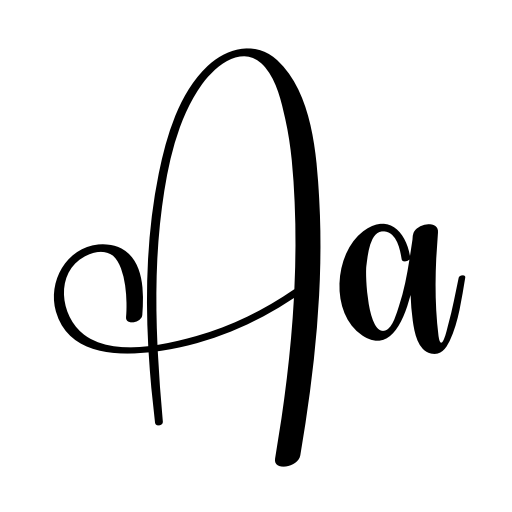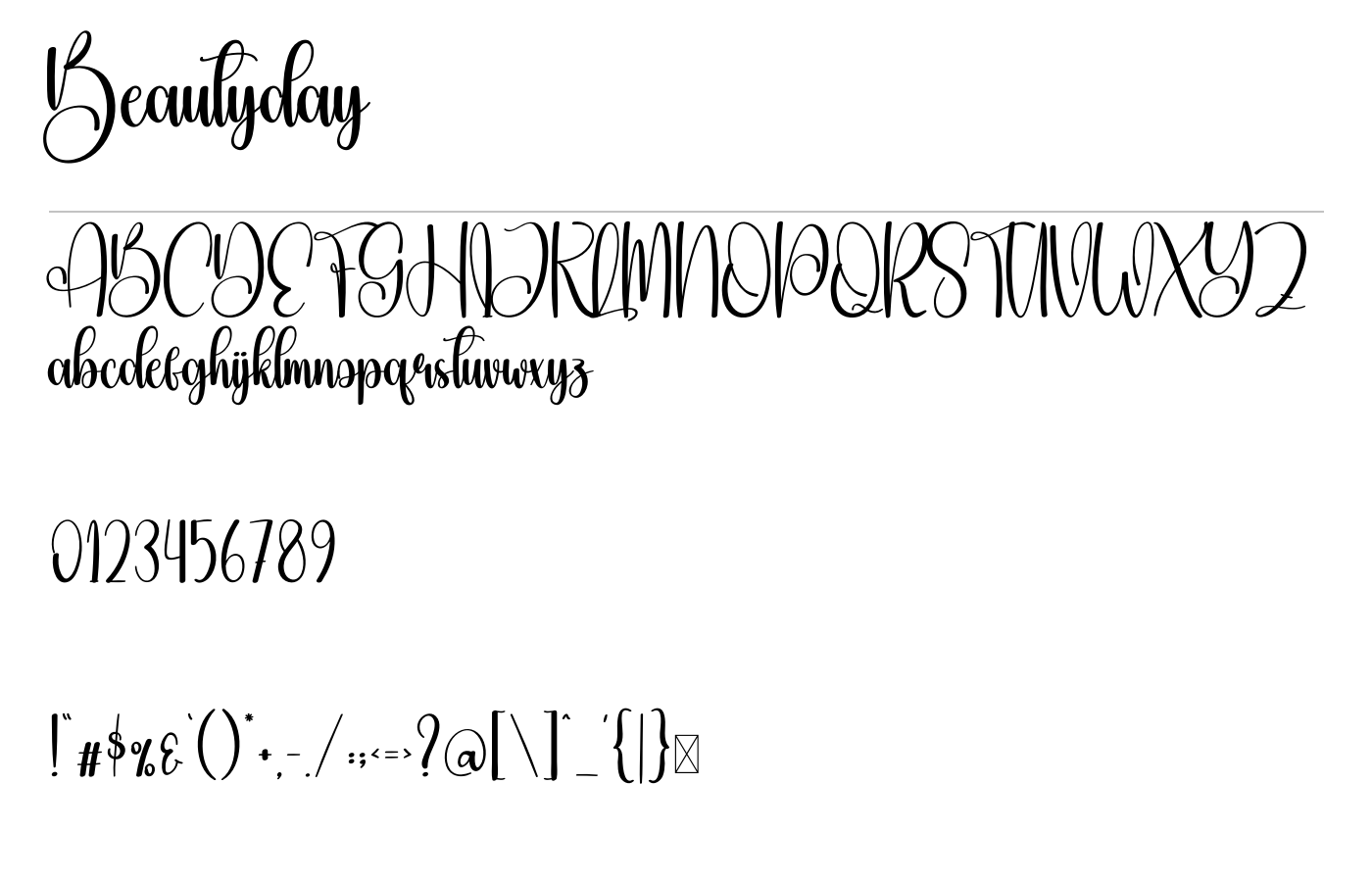
Beautyday is an elegant and playful script font with tall, slender letterforms and delicate swirls that bring a sense of charm and sophistication. Its high contrast strokes and flowing lines make it ideal for feminine branding, invitations, and fashion-related designs where a touch of graceful personality is desired. This font works best in logos and headlines, adding a stylish and whimsical flair to any project.
Beautyday Font
About Beautyday Font